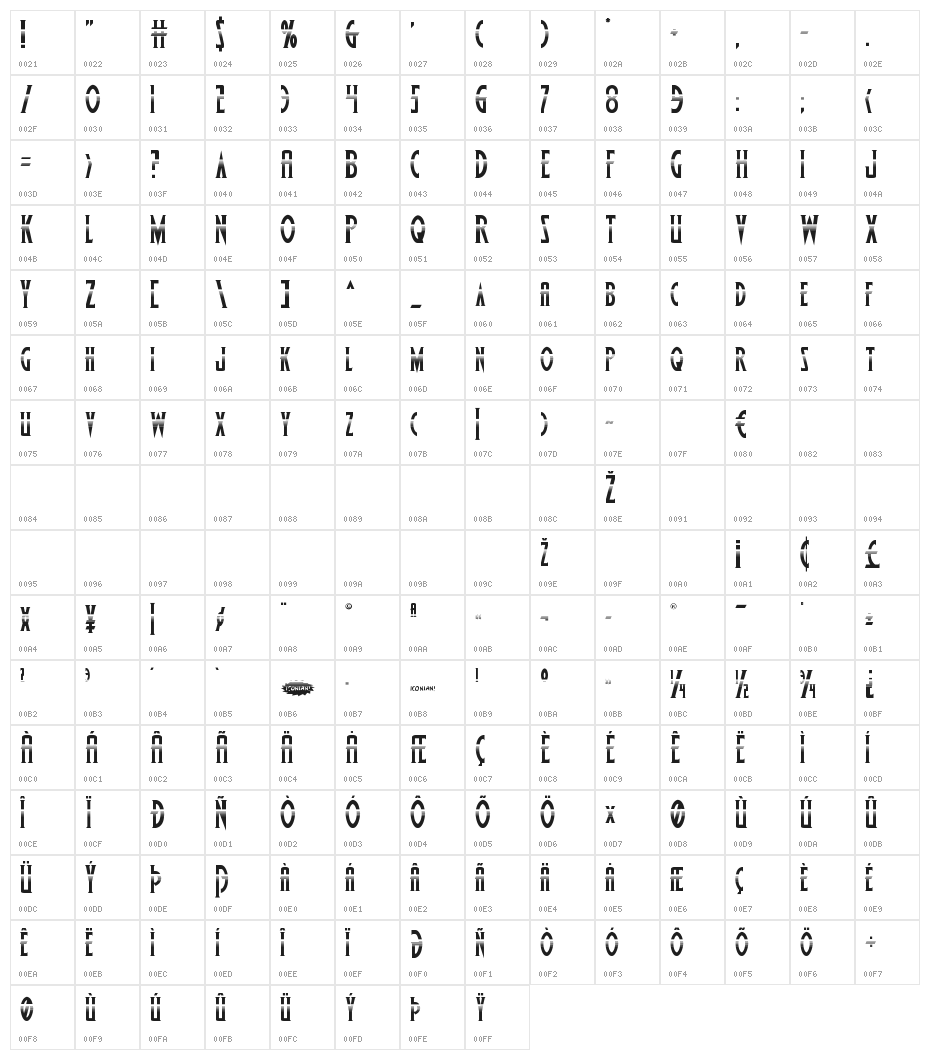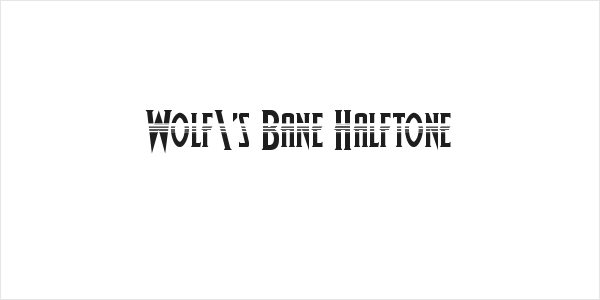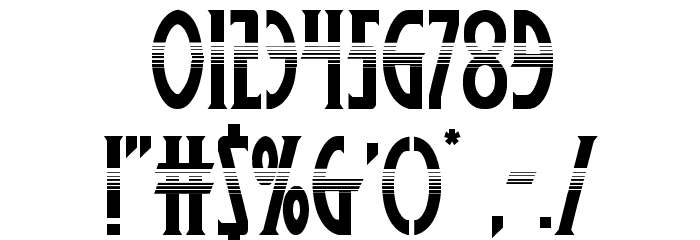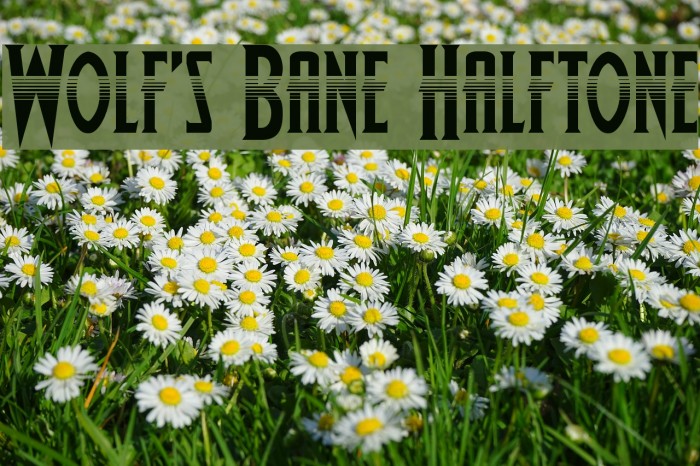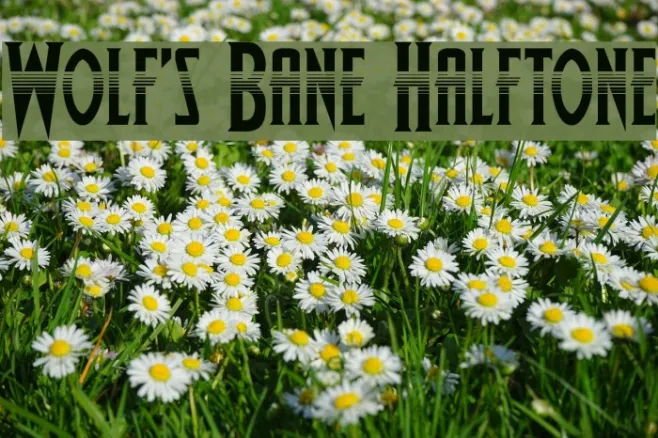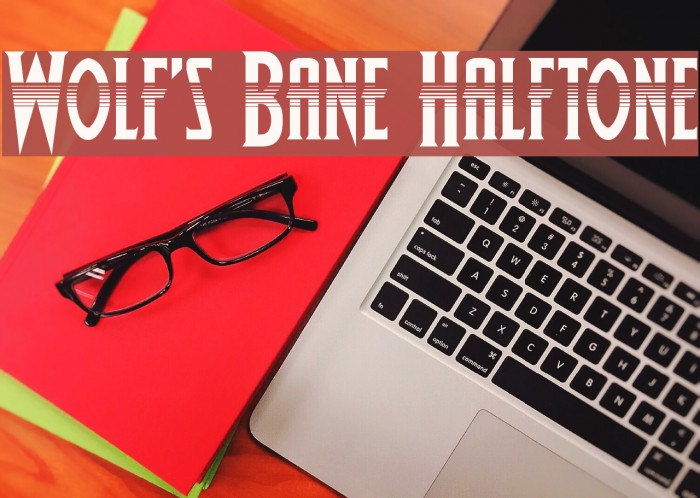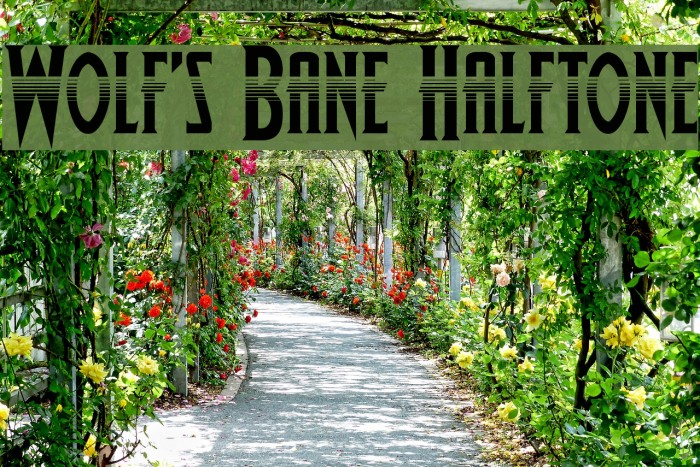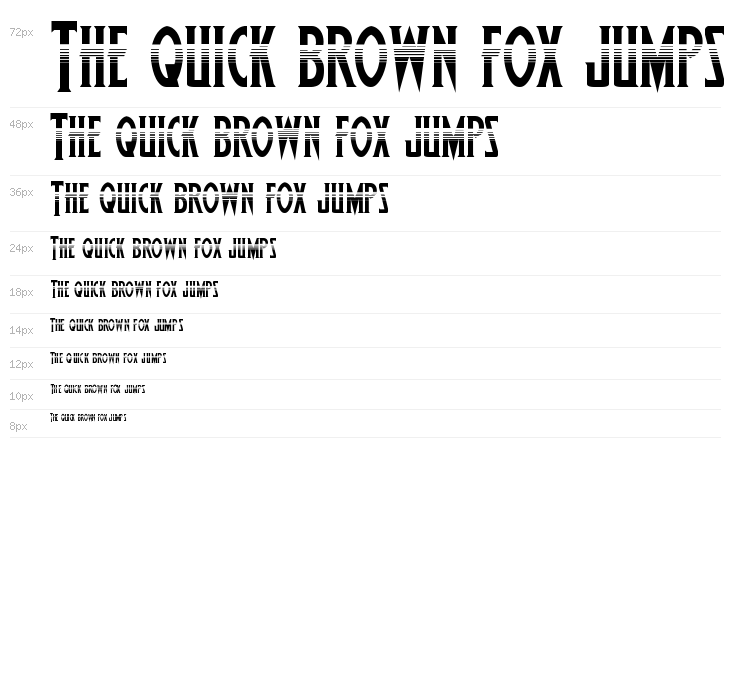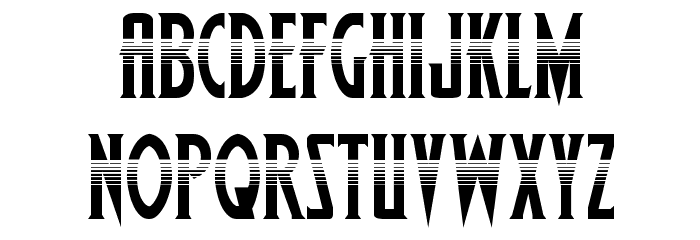
Wolf's Bane Halftone Font
This font features a bold and striking design with a halftone effect that gives it a unique, textured appearance. The uppercase letters are tall and narrow, with sharp angles and a distinct geometric style. The horizontal lines running through each character create a sense of movement and depth, making it stand out in any design. The numbers and special characters maintain the same bold and dynamic style, ensuring consistency across all text elements. This font is perfect for projects that require a modern and edgy look.
| Proposed Projects | Ideal for posters, album covers, branding, and any project needing a modern, edgy aesthetic. |